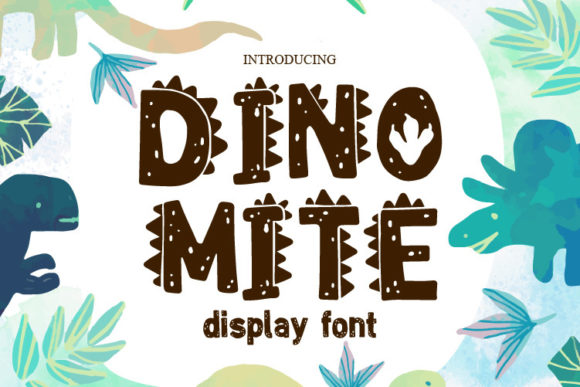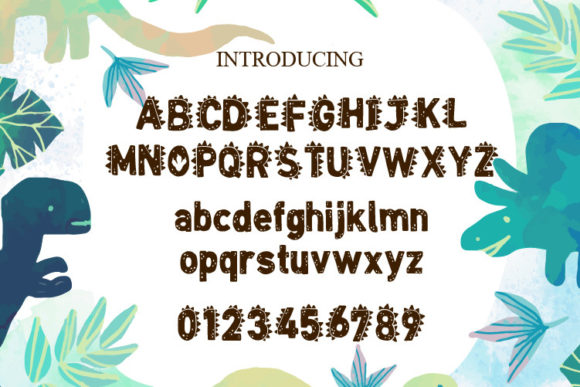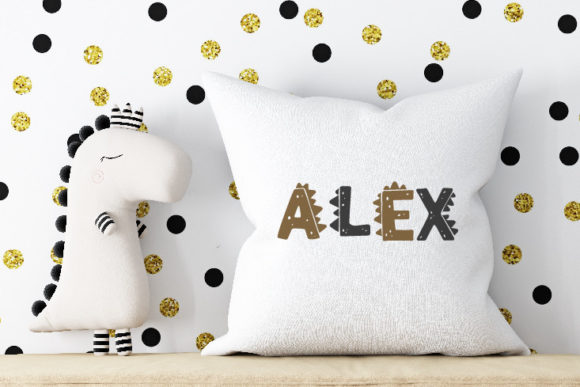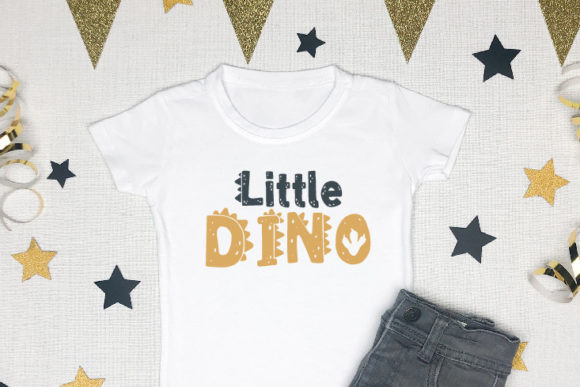
Dinomite is an adventure-themed decorative font with dinosaur elements. It’s the perfect choice for kids’ activities or school projects. Use it to add a fun and exciting feel to any design project.
Dinomite Font